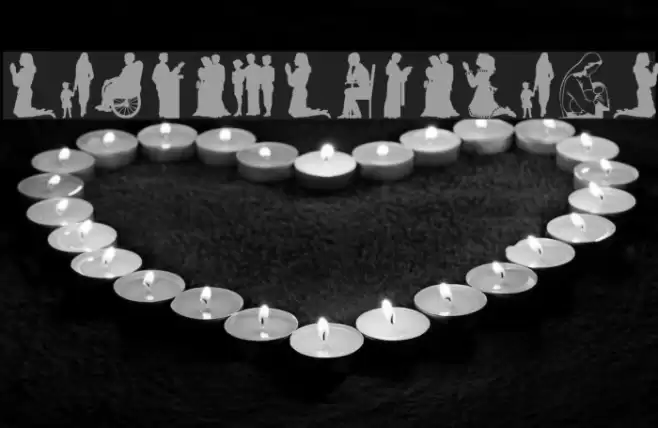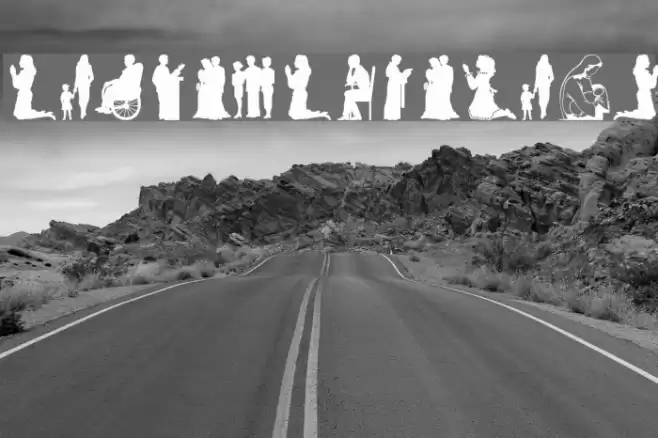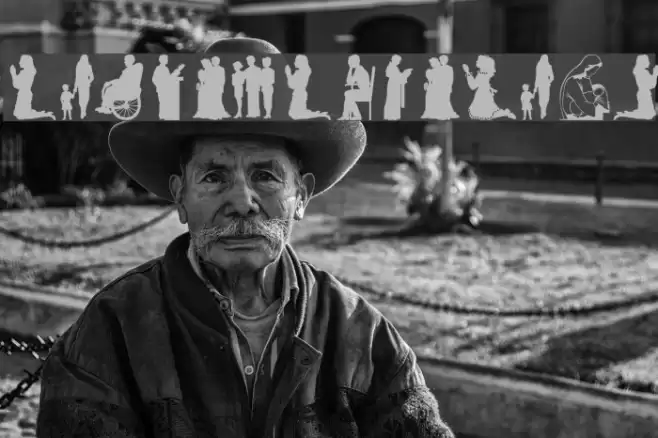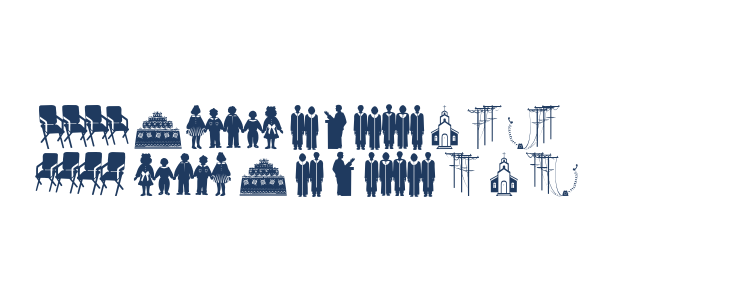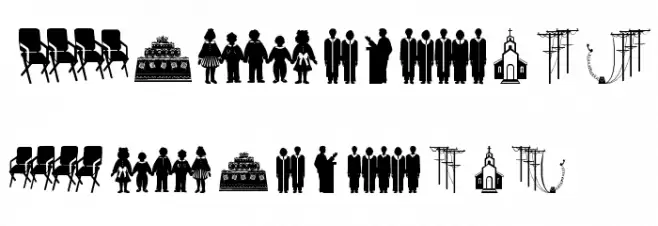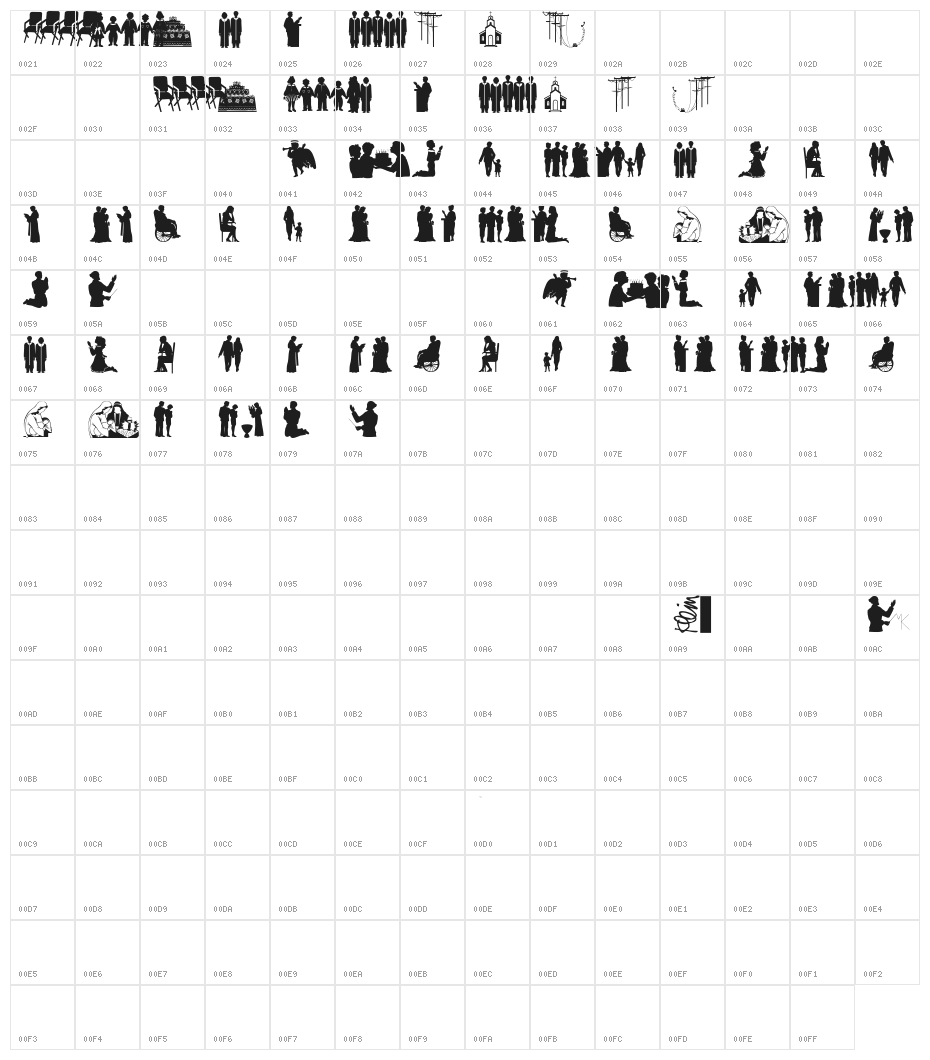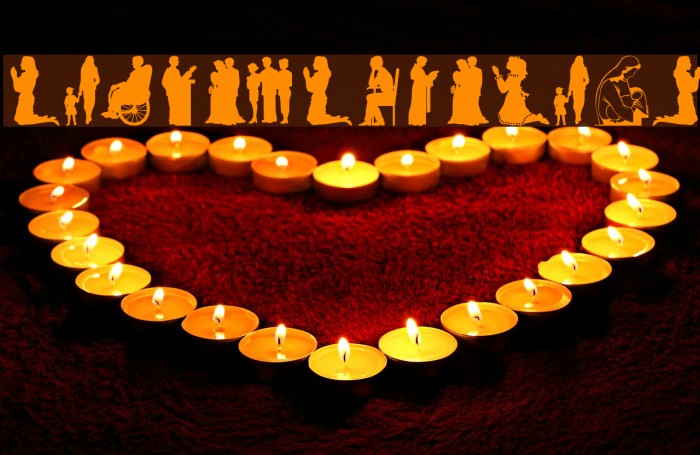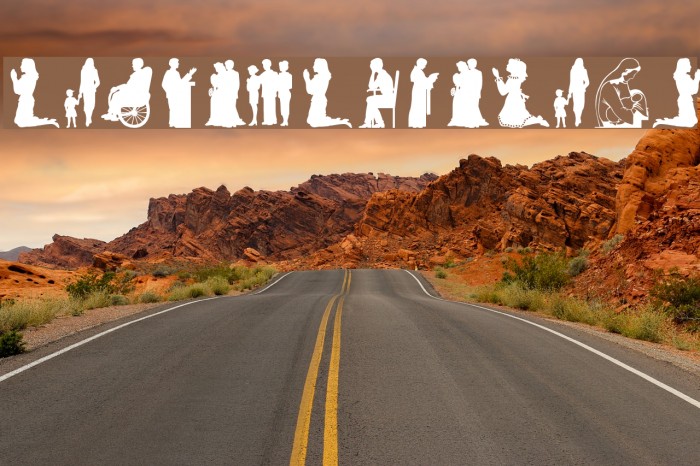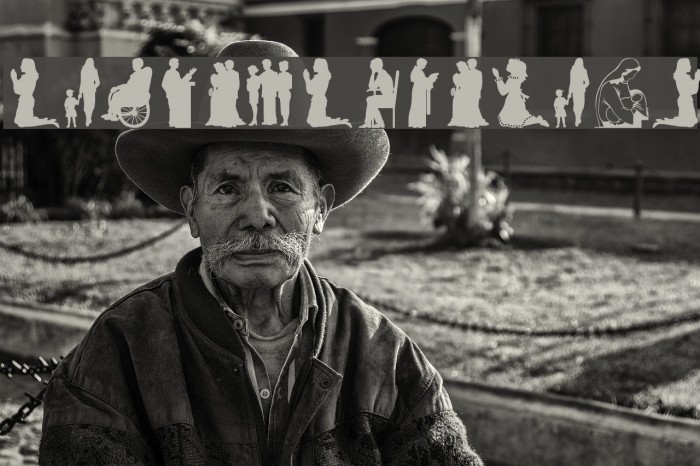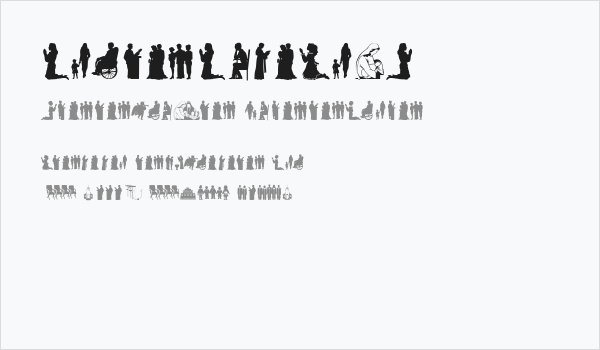
SomeSilhous Font
A decorative font composed of detailed human and object silhouettes, including people in various poses, groups, wheelchairs, cakes, chairs, churches, and telephone poles. Each character is represented by a unique silhouette, creating a pictorial and narrative effect rather than traditional letterforms.
- Proposed Projects: Event invitations, posters, educational materials, storytelling visuals, themed branding.
- Overall Style: Decorative, Narrative, Pictorial
- Use Case: Logos, Posters, Themed Headlines, Visual Storytelling